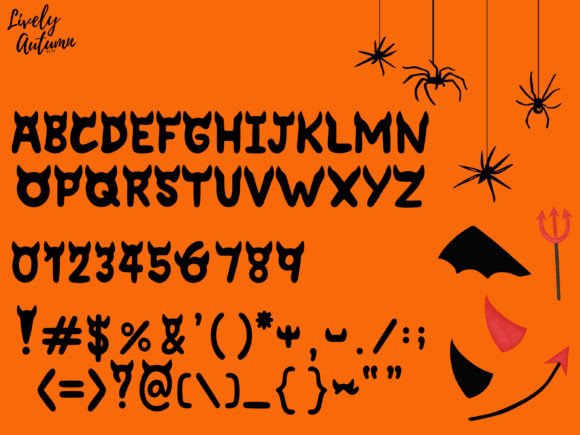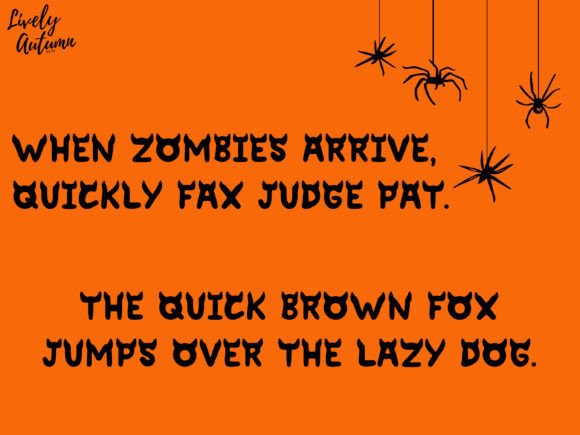
The Perfect Font for a Touch of Rebellion
Have you ever been working on a project and suddenly you need that one thing to make it pop? Maybe it’s a bold color, a quirky illustration, or a font that screams “I’m not afraid to be different.” For designers, that moment of creative clarity is what drives us to push the boundaries of what’s possible. And for those who crave a touch of mystique, there’s one font that’s sure to cast a spell: the Devil Font.
This fancy decorative font is adorned with devilish horns that add a playful yet edgy touch to any design. Whether you’re creating a spooky Halloween poster or a bold branding campaign, the Devil Font is the perfect addition to give your project that extra oomph. As a designer, you know that the right font can make all the difference, and the Devil Font is no exception.
Devil Font Key Features
• Font Family: Devil Font is a sans-serif font family.
• Unique Characteristics: The font features a distinctive, gothic-inspired design with a bold, sans-serif aesthetic.
Devil Font Review
As a designer, I was excited to dive into the Devil Font and see what it had to offer. Overall, I have mixed feelings about this font, but let’s break it down.
• The bold, gothic style of the font is undeniably striking. It’s perfect for adding a touch of edginess to your design.
• The Devil Font is highly customizable, with a range of weights and styles to choose from. This makes it easy to find the perfect look for your project.
• The font is well-suited for use in digital media, such as logos, icons, and graphics.
• The font can be difficult to read at small sizes, which may make it less suitable for body text or large blocks of text.
• The Devil Font may not be the best choice for projects that require a more formal or professional tone.
• The font’s bold style can sometimes feel overwhelming, which may not be ideal for designs that require a more subtle approach.
The Devil Font is a solid choice for designers who are looking to add a touch of darkness and edginess to their work. While it may not be suitable for all projects, it’s a great option for logos, icons, and graphics. With some careful consideration of the font’s limitations, I think the Devil Font can be a valuable addition to any designer’s toolkit.
Tips for Getting the Most Out of Devil Font
Here are some tips to help you get the most out of Devil Font:
• Use Devil Font for titles and headings to add a touch of elegance and sophistication.
• Pair Devil Font with other fonts to create a unique and eye-catching design.
• Experiment with different font sizes and styles to add visual interest to your design.